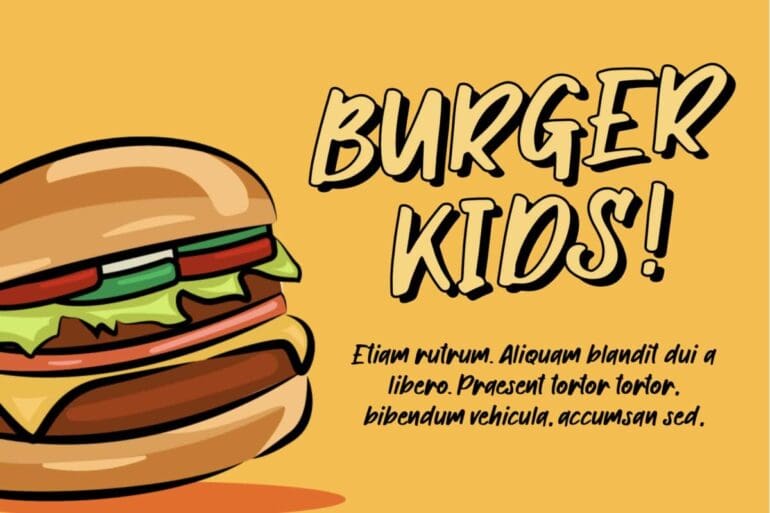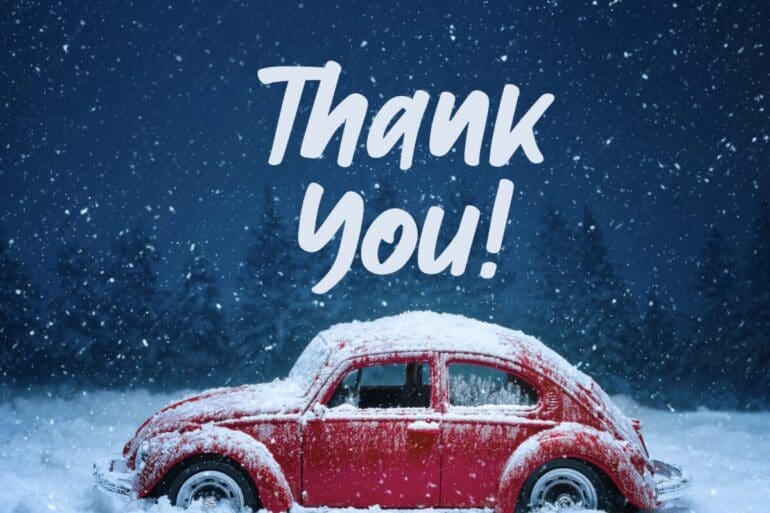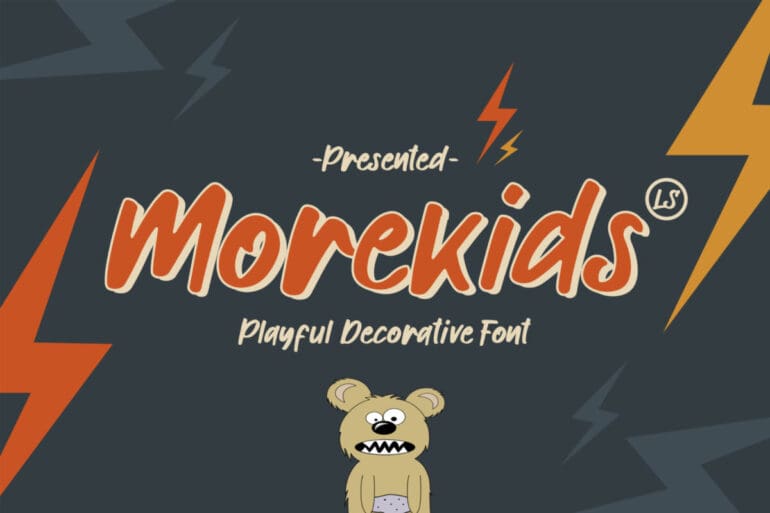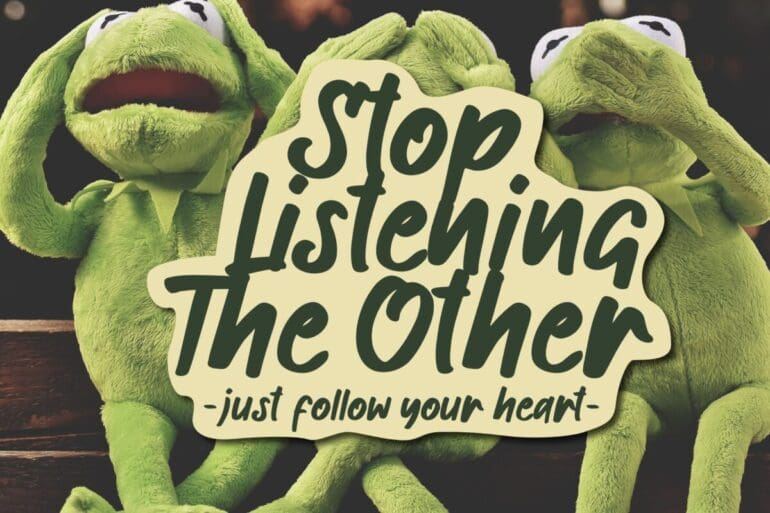
Morekids Font
Morekids Font. This pair was inspired by the playful poster design that I saw on some coffee shops, It was crafted by hand especially to add a natural handmade feeling in its brand identity than I make it clean with pentool.